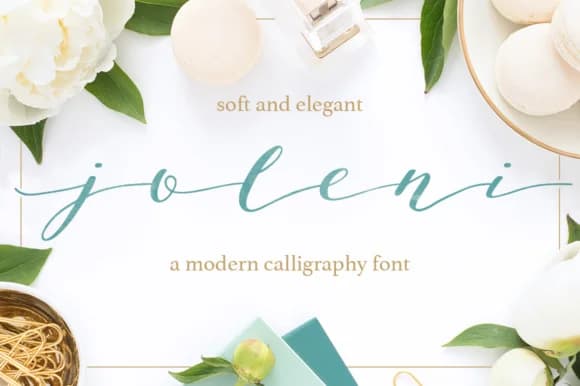
Joleni Font by Lef is a handwritten script distinguished by its soft, flowing letterforms and genuine charm that mimics the warmth of personally handwritten text. The carefully constructed design works beautifully across a range of applications, from intimate stationery to bold branding statements. This script features individual alternates for each glyph along with a curated set of ligatures, offering designers meaningful variety when crafting layered, dynamic typography compositions. Whether you're designing wedding invitation suites, hand-lettered greeting cards, feminine business branding, boutique packaging for skincare collections, or decorative signage for craft businesses, Joleni delivers an authentically artisanal aesthetic. The OpenType SVG format provides rich color opportunities when working in compatible software like Photoshop CC 2017 and above or Illustrator CC 2018 and later. The comprehensive package includes the primary OTF font file, a Photoshop brush set for direct painting applications, and more than 170 high-resolution PNG files for maximum flexibility across various design workflows and printing scenarios. Color customization is straightforward, apply color overlays through layer blending options while maintaining the font's transparency, allowing you to seamlessly adapt Joleni to match your specific color palette and creative vision. Discover what makes this handwritten script special by getting Joleni Font on Creative Fabrica.
- Elegant, Flowing, Joleni Regular
Joleni Font is a script font that shines as a display or heading face. Pair it with a clean sans-serif or serif font for body text — the contrast creates a clear hierarchy while the two styles stay balanced and easy to read.
Joleni Font